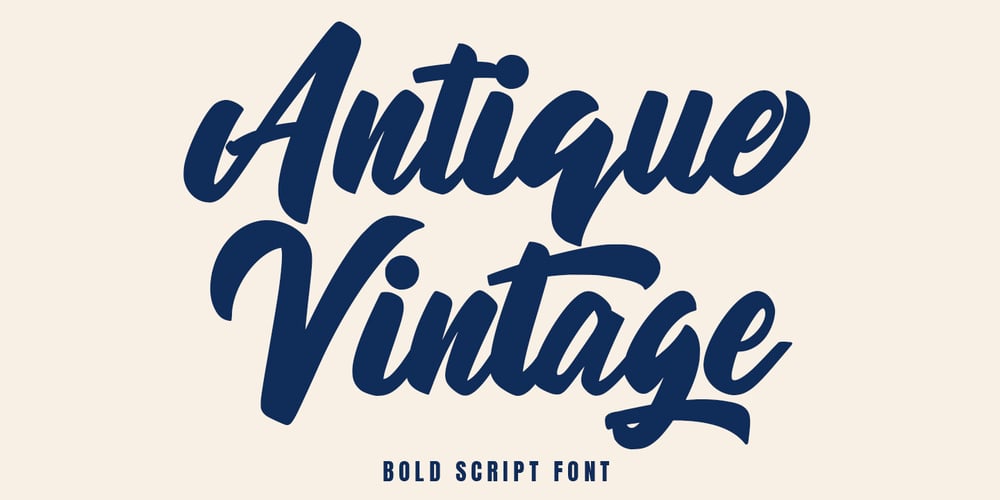
Antique Vintage
Antique Vintage Font Family was designed by Asep Rendi and published by Arendxstudio. Antique Vintage contains 1 styles and family package options. Antique Vintage – Script font is a type of font that features thick and prominent strokes, giving it a bold and impactful appearance. The letters are usually interconnected, creating a flowing and handwritten look.The boldness of the font makes it stand out and grabs attention, making it a popular choice for headlines, titles, and logo designs. It exudes confidence, strength, and creativity, making it suitable for various design projects that require a strong visual impact.